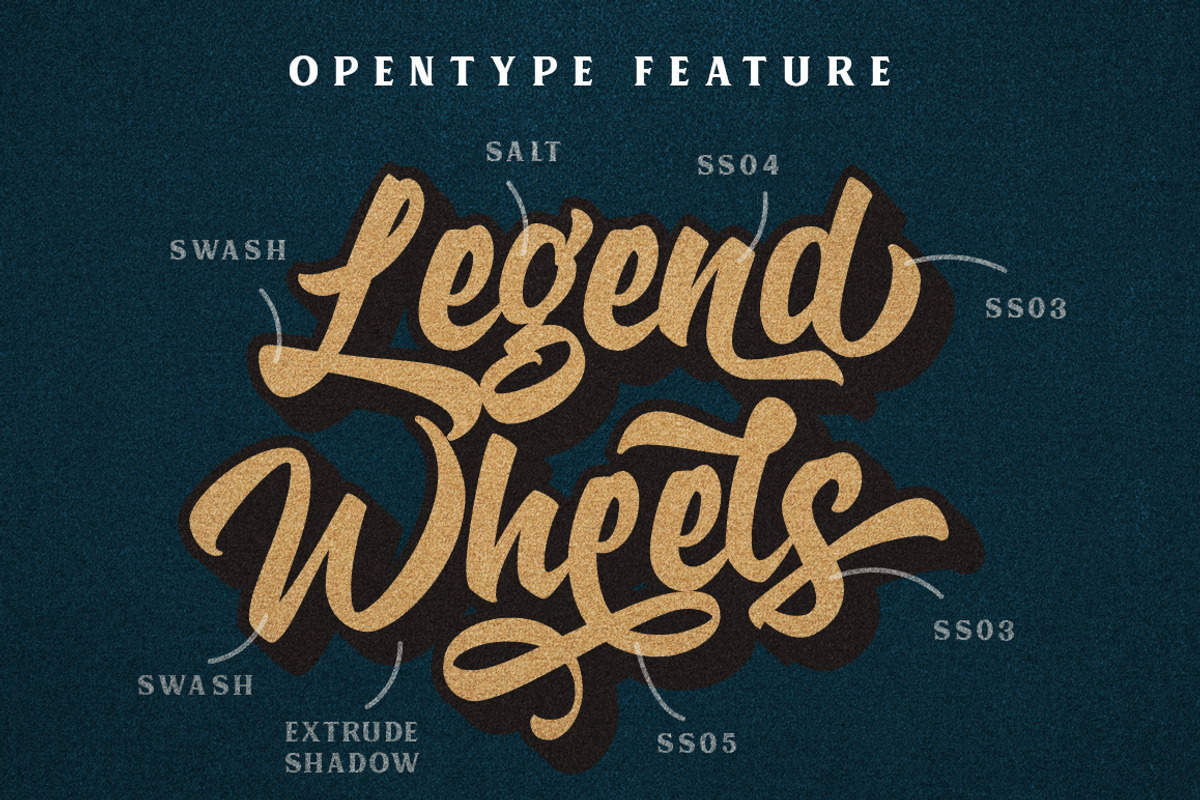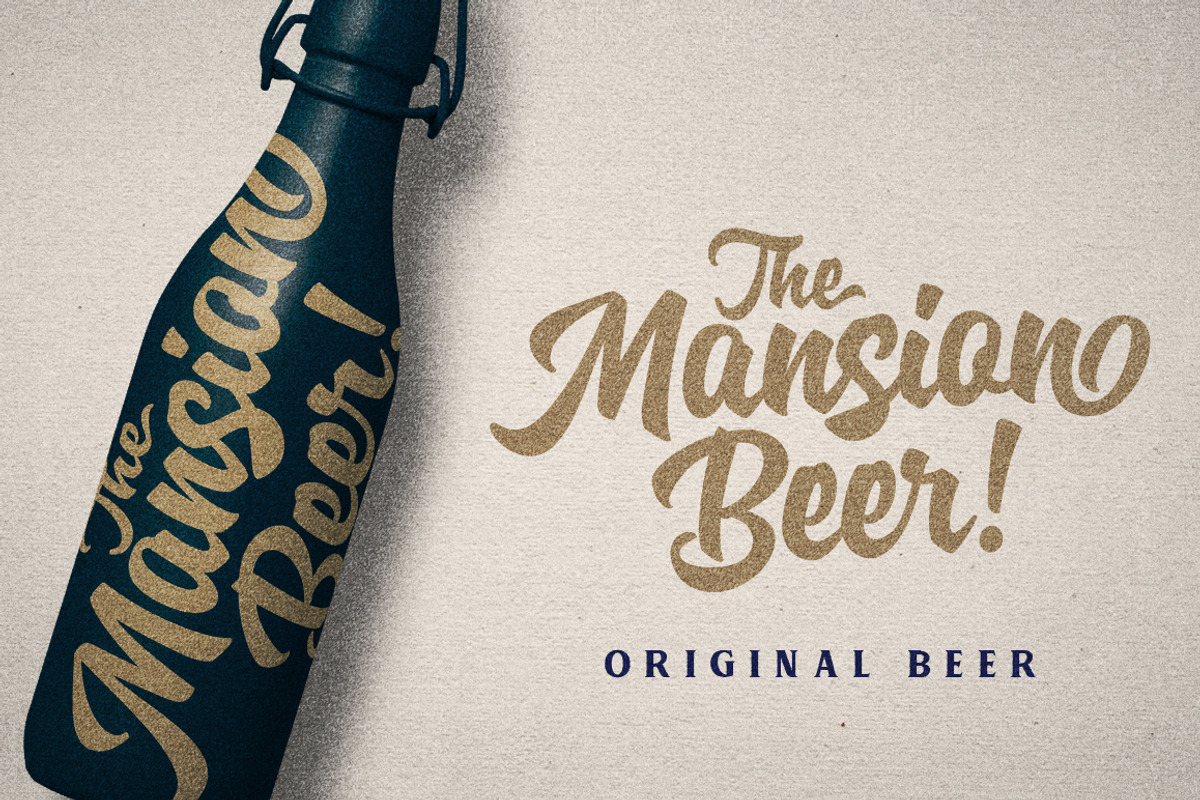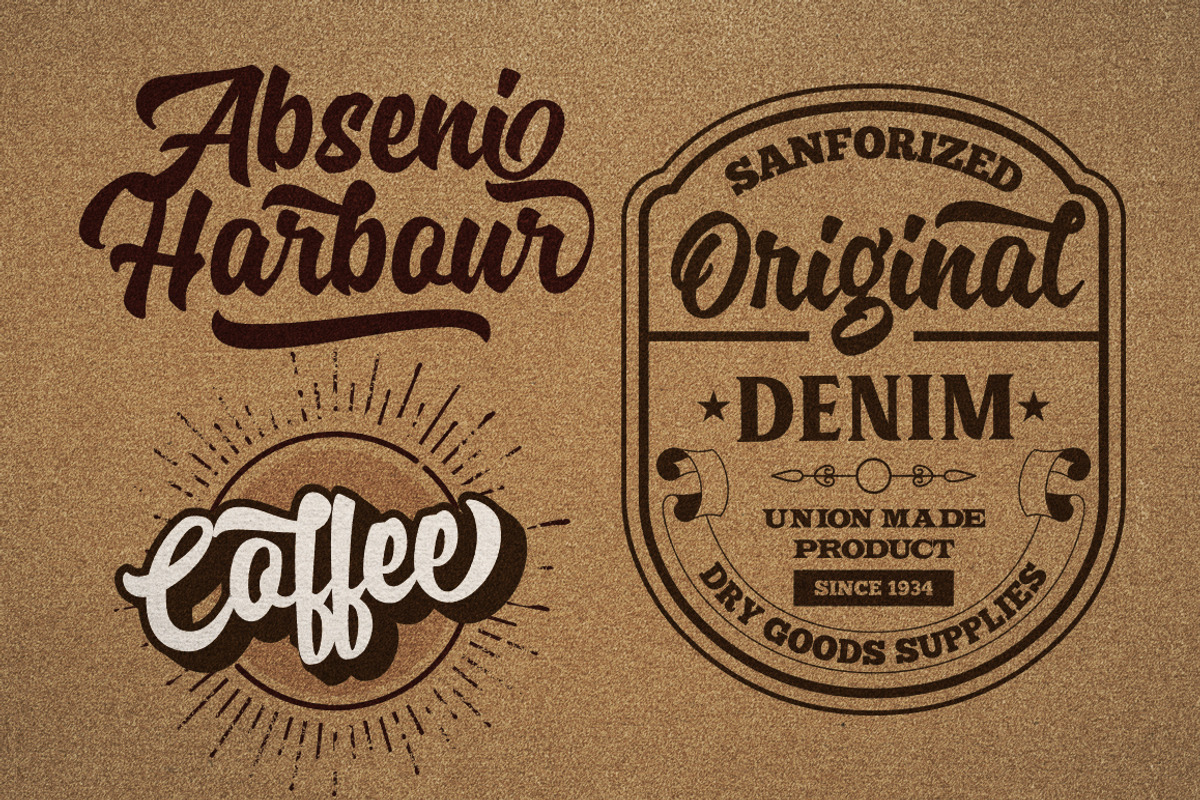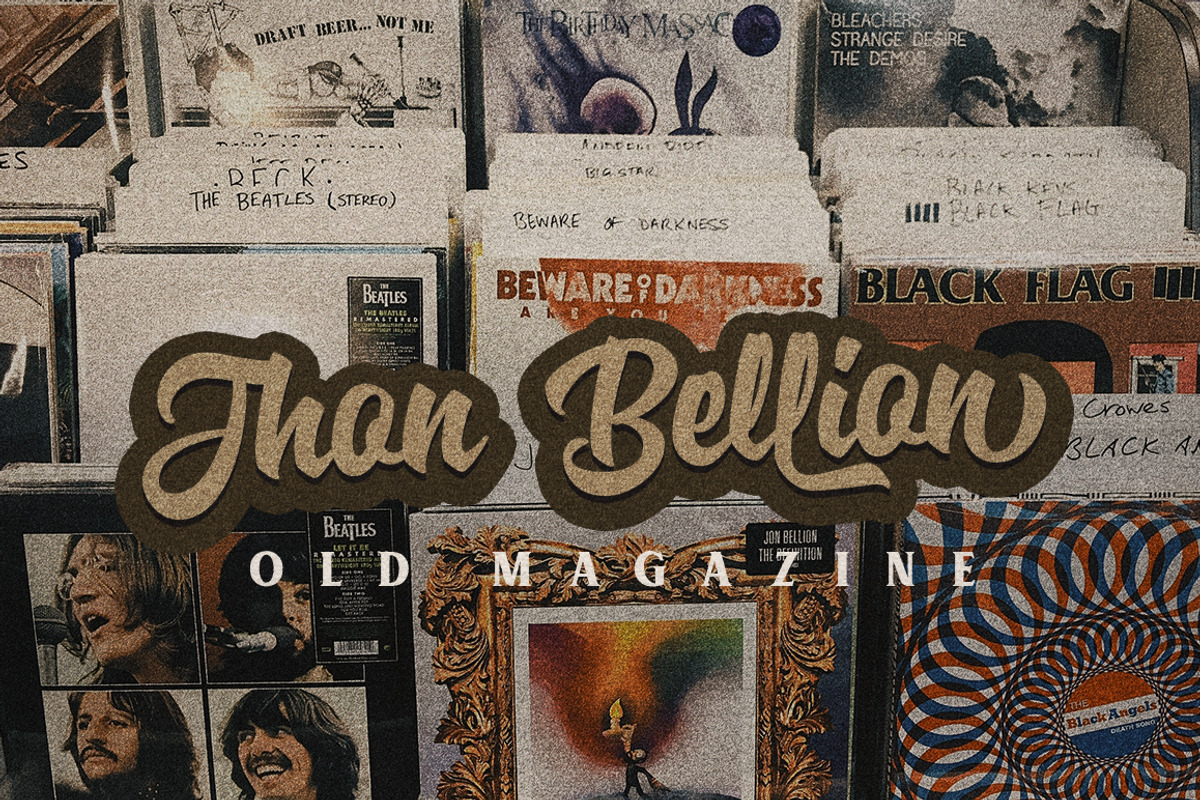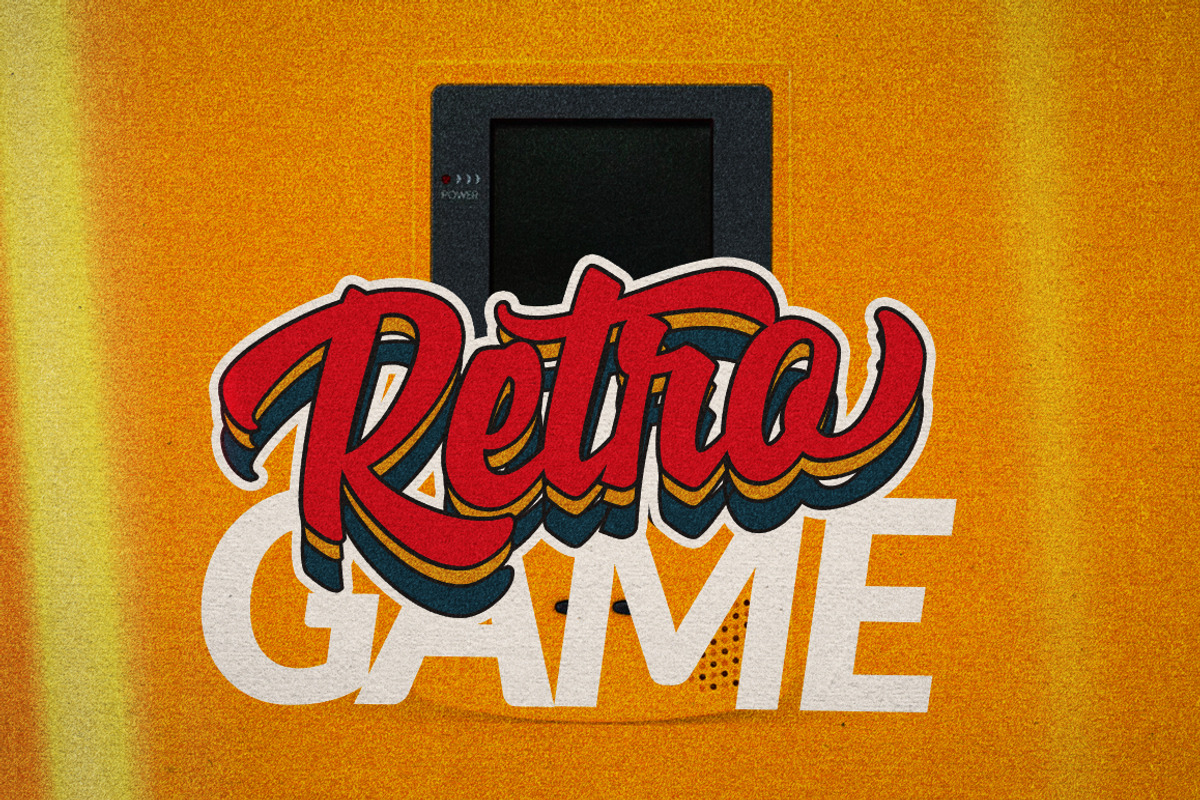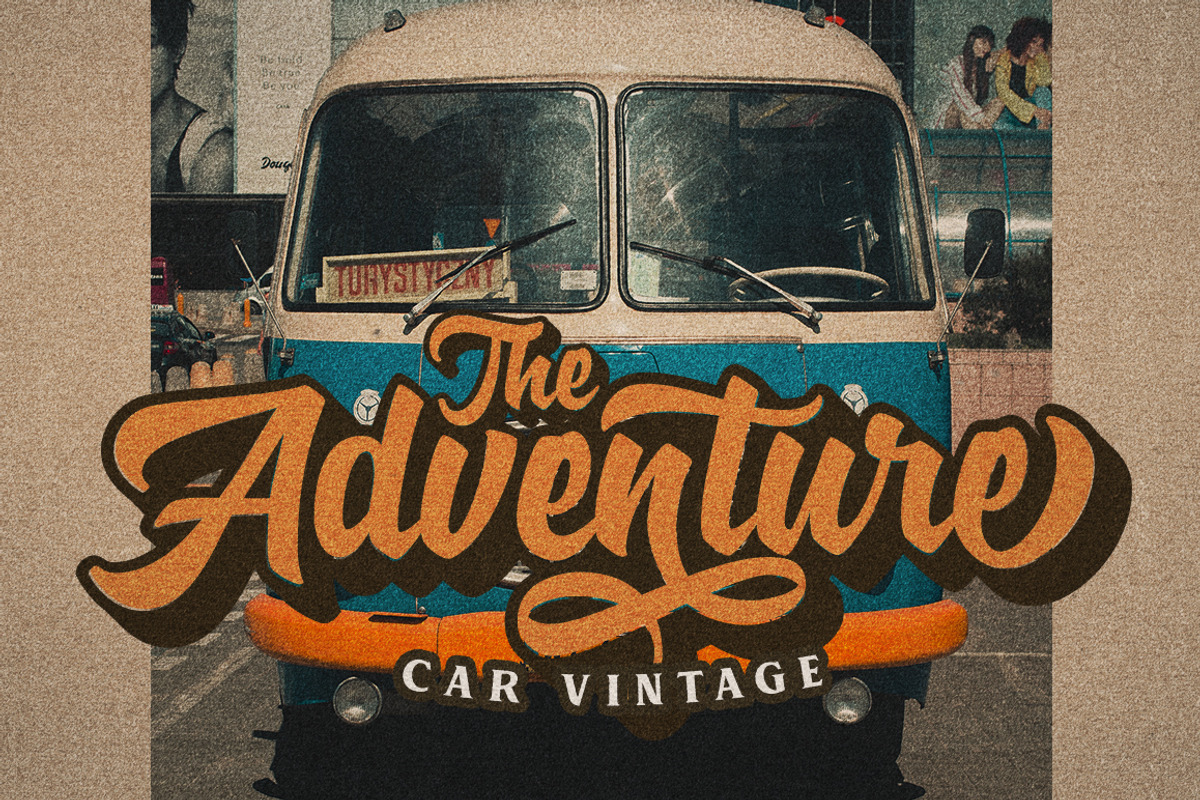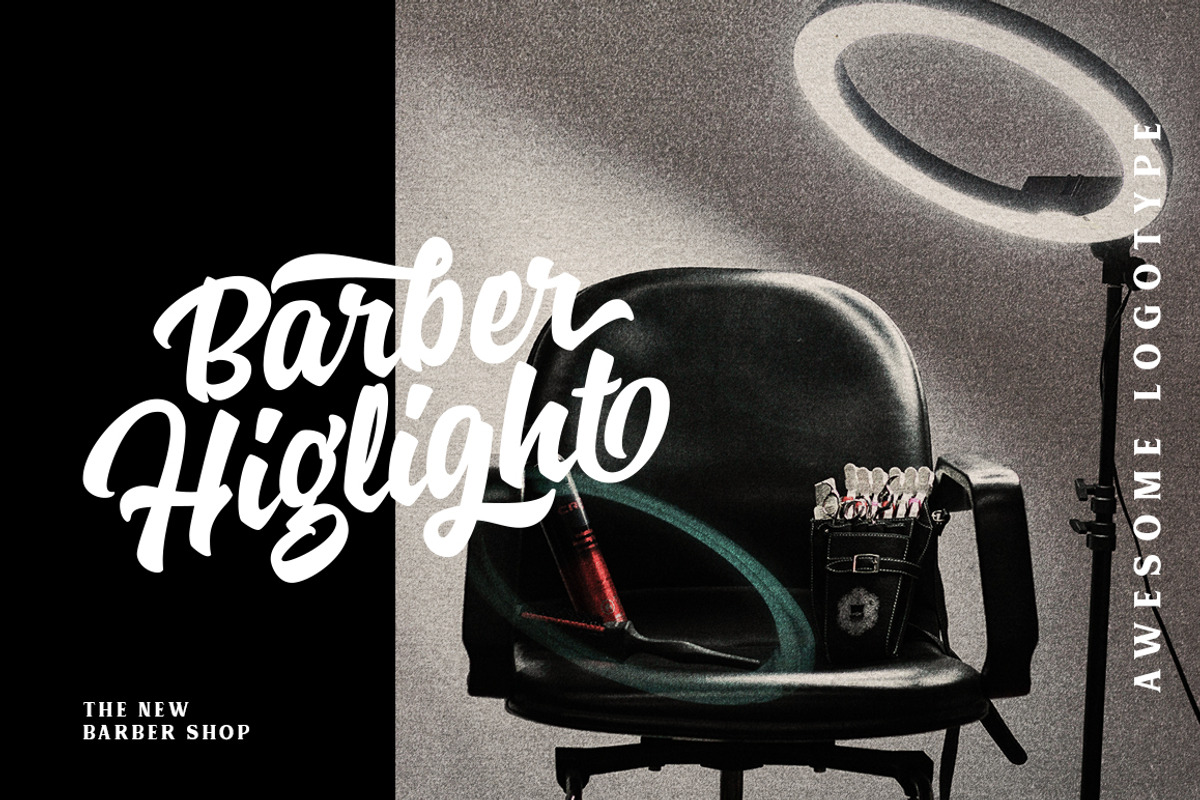
Specta Typeface ⚡️
Specta Typeface Inspired by Retro style and combination with Hand Lettering style. I'm made with personality touch every single curve. I hope this can make inspire you from your work. and a very bouncy baseline It has a perfectly paired complimentary marker font , and a super handy set of bonus Swash. Ideal for logos, handwritten quotes, product packaging, header, poster, merchandise, social media & greeting cards.